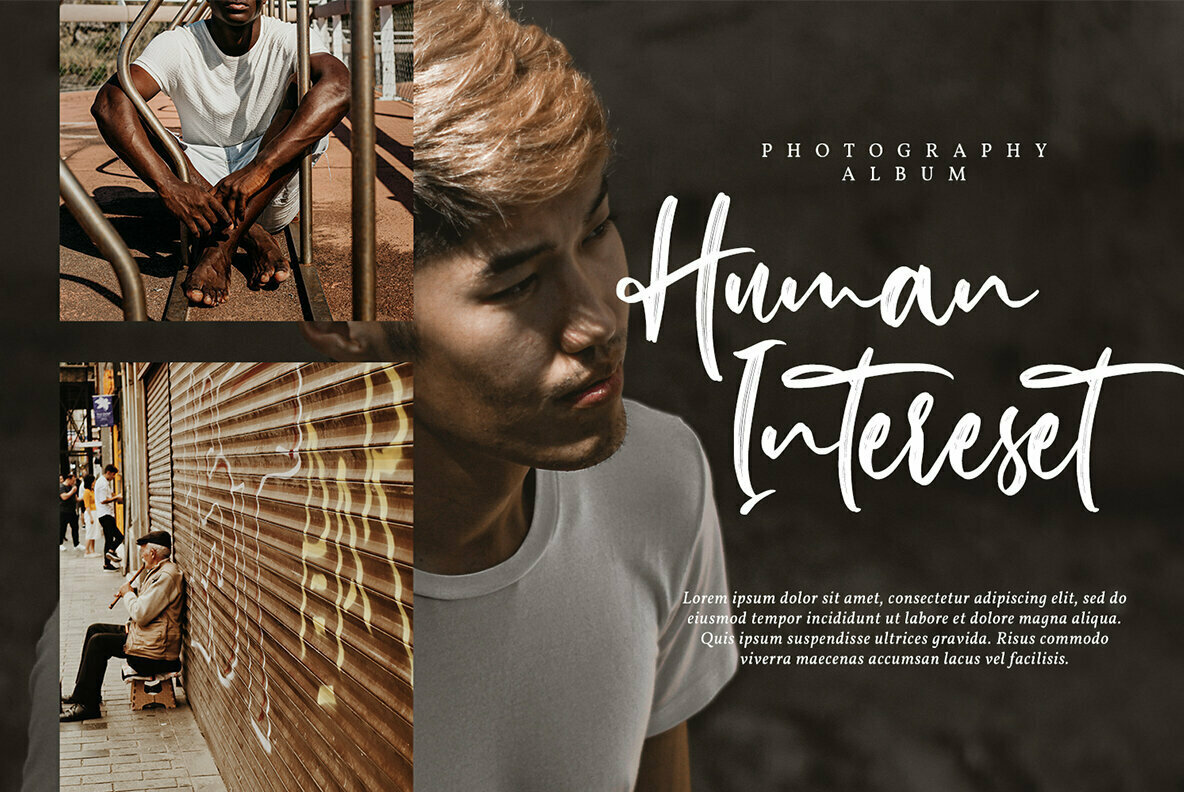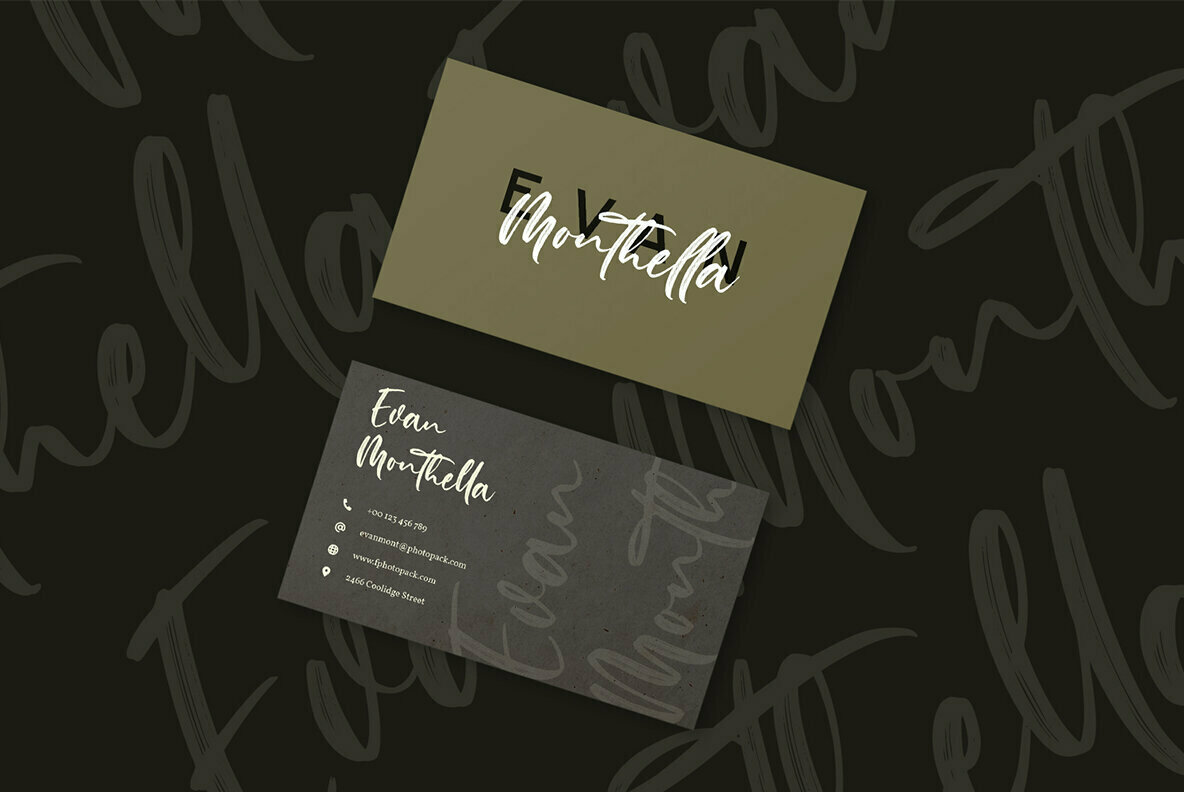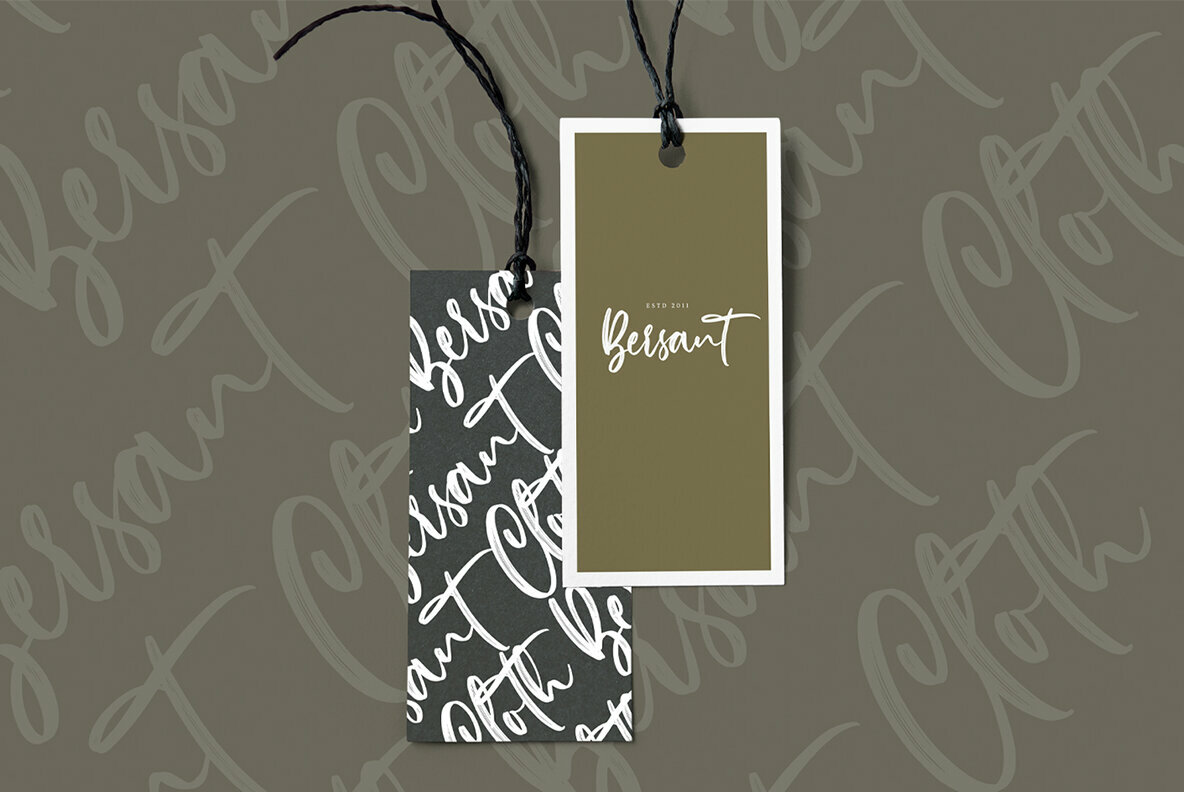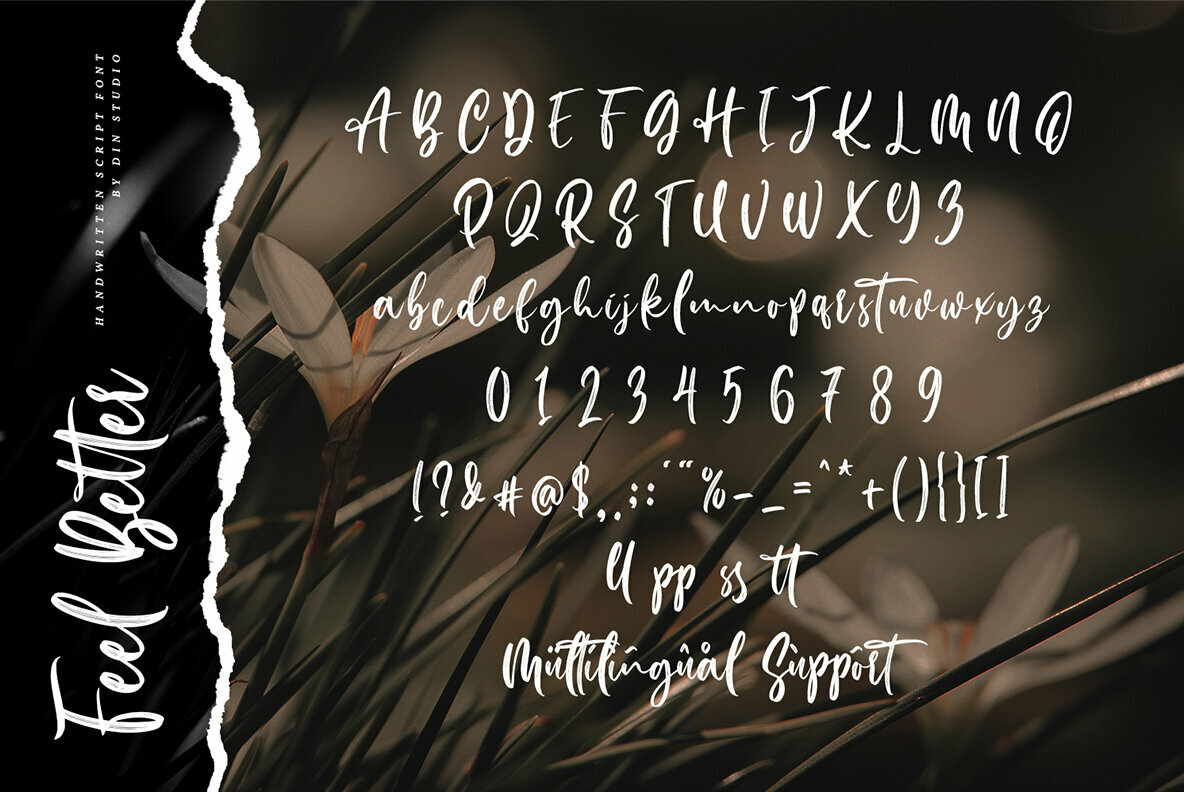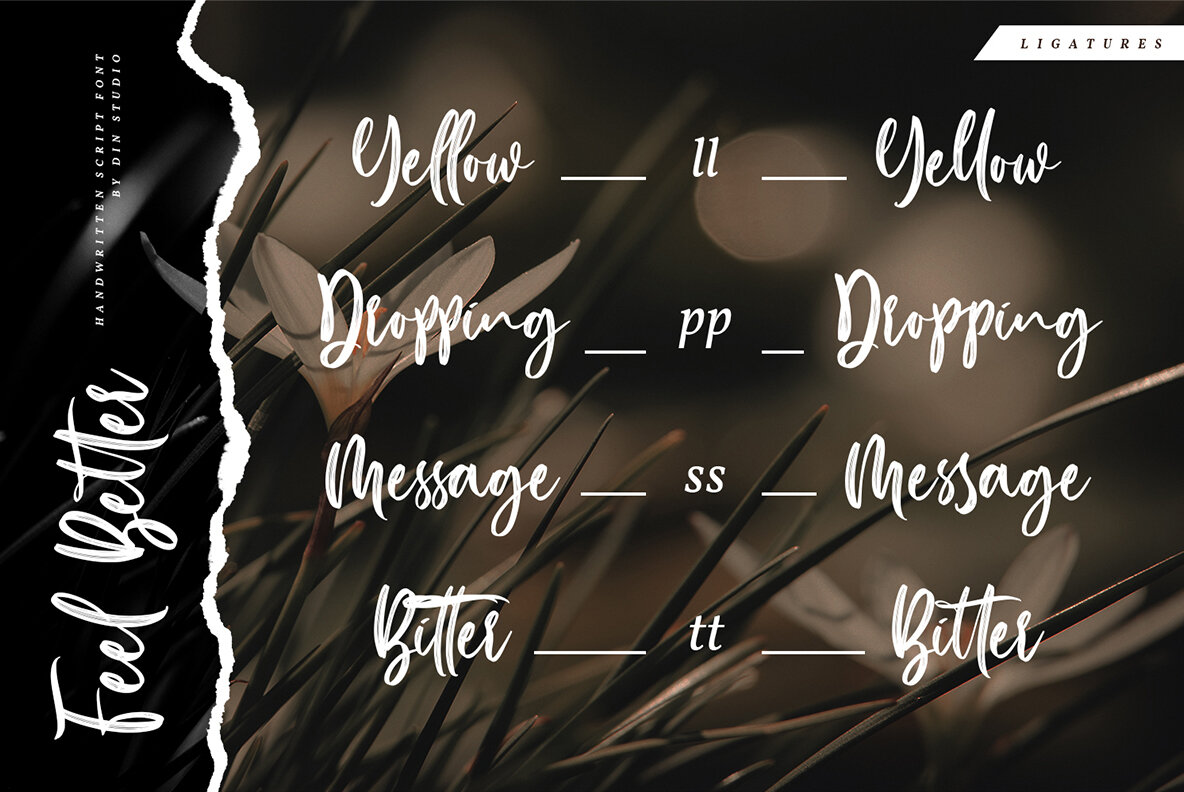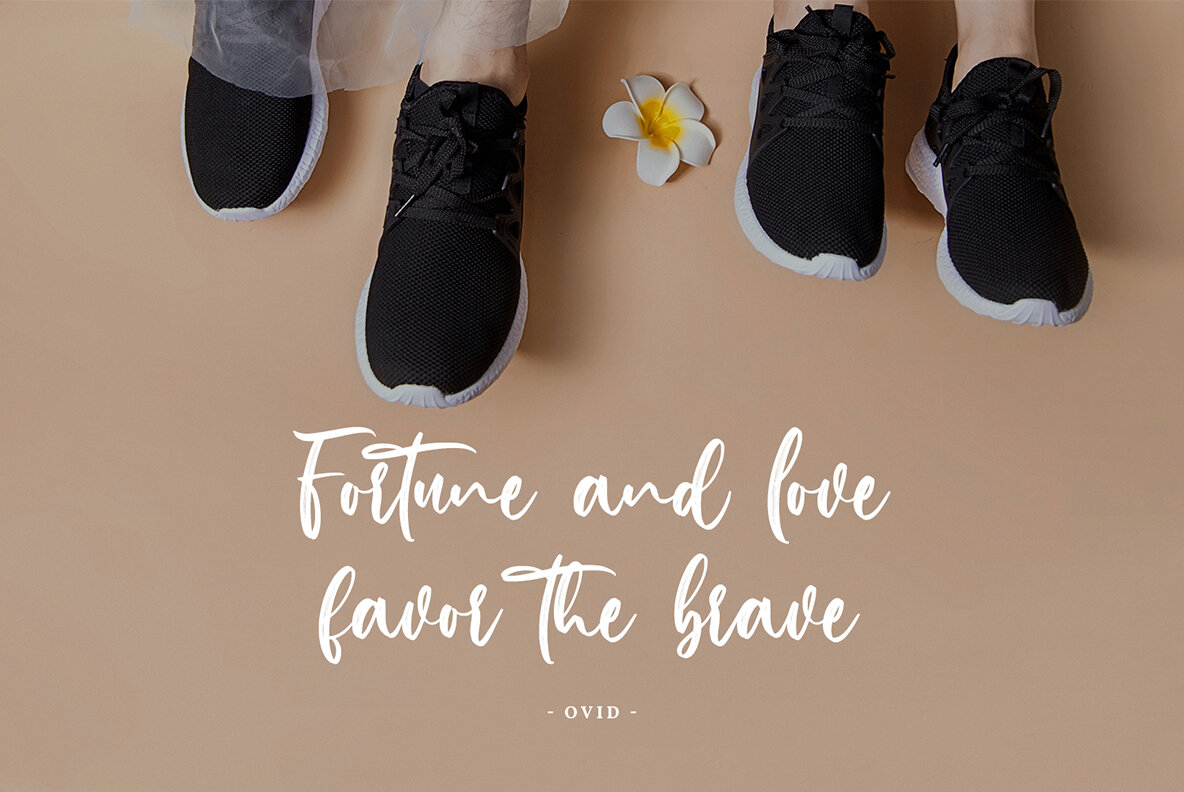
Feel Better Font
Feel Better
Feel Better is a meticulously crafted handwritten font that pairs beautifully with brush fonts to enhance any design project. Its graceful contours and artistic flair make it ideal for designers seeking elegance and charm in their branding.Feel Better: An Elegant Handwritten Font
Perfect Applications